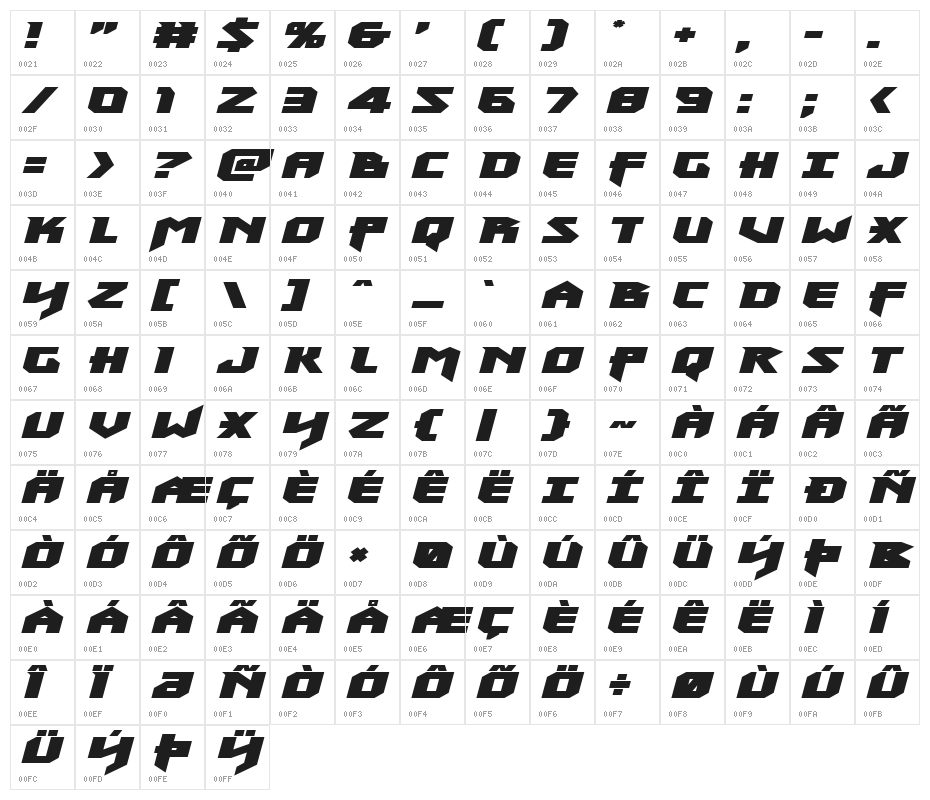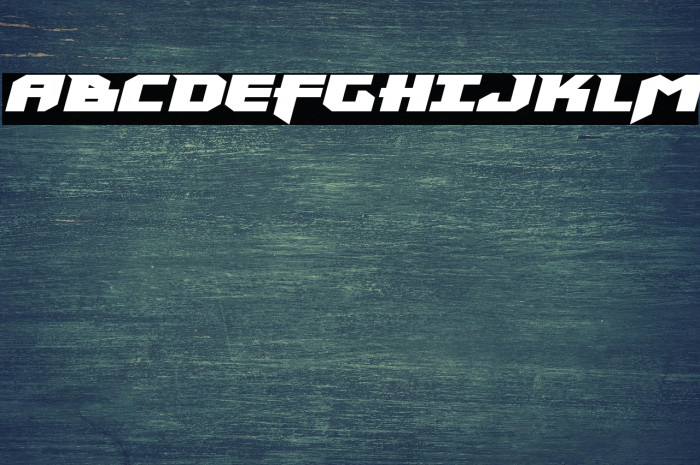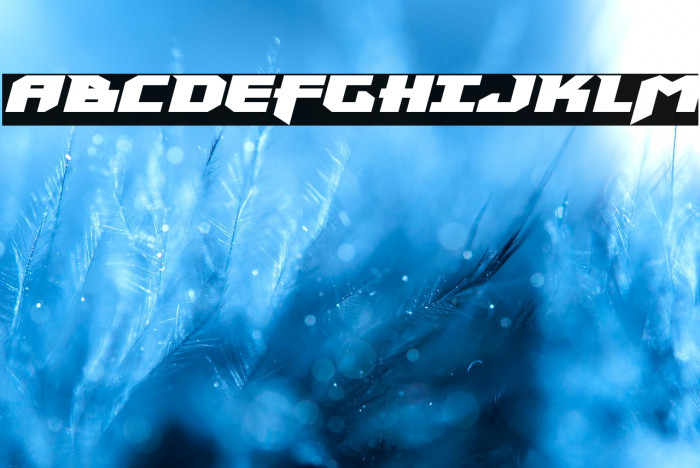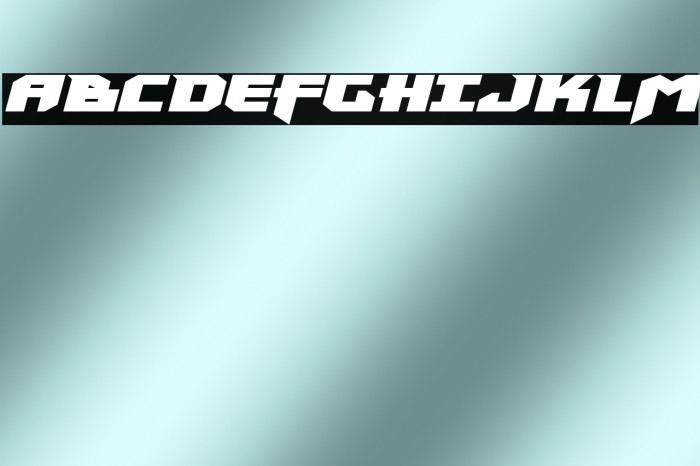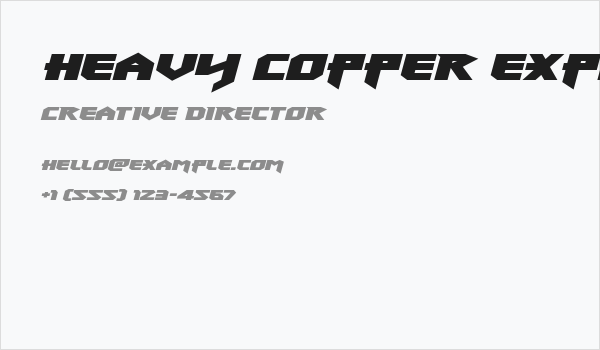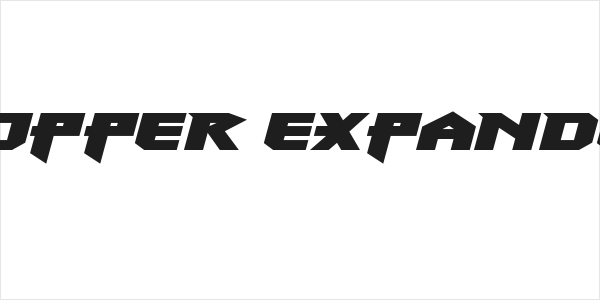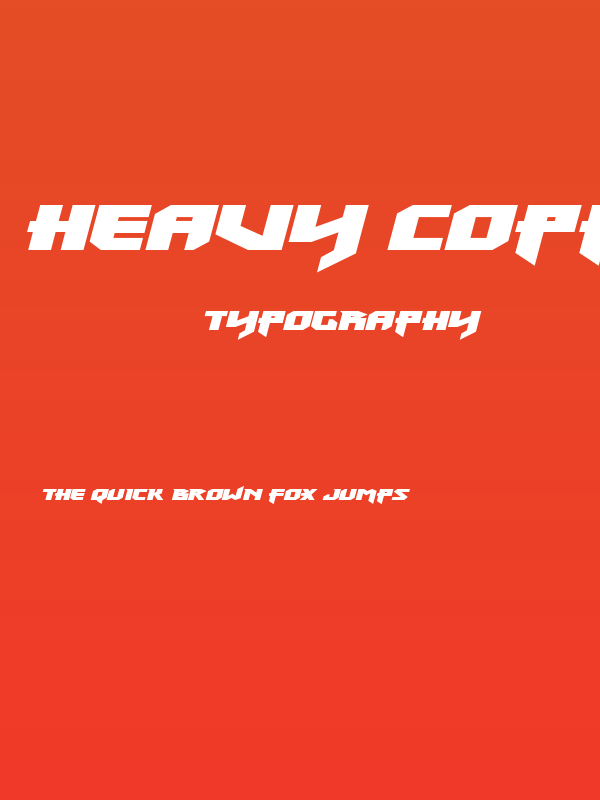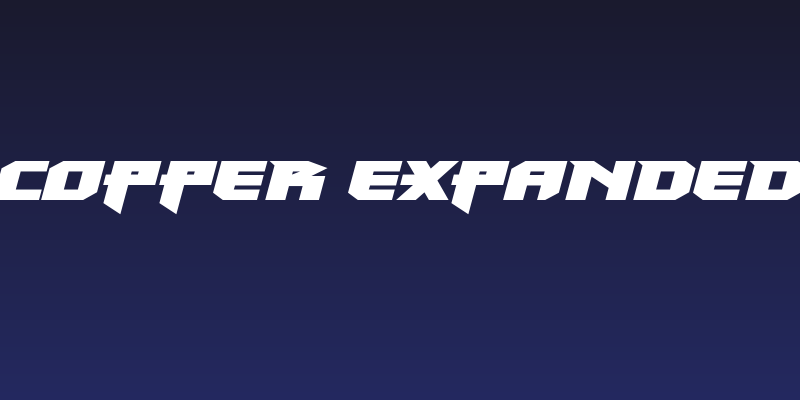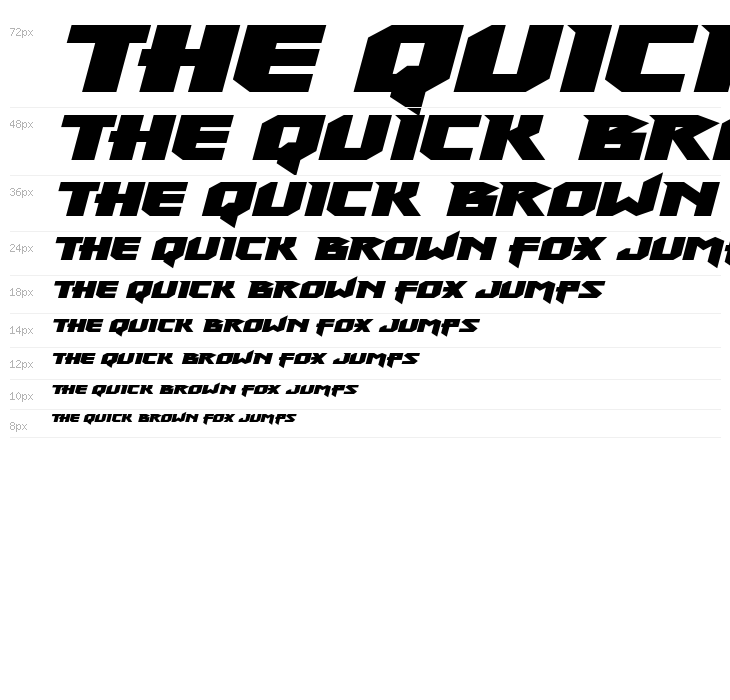
Heavy Copper Expanded Italic Font
Heavy Copper Expanded Italic Description
This font features a bold, angular design with a futuristic and aggressive aesthetic. The characters are heavily stylized with sharp edges and a dynamic slant, giving a sense of motion and energy. The uppercase and lowercase letters maintain a consistent style, with the lowercase slightly smaller but equally bold. Numbers and special characters follow the same design principles, ensuring uniformity across all glyphs. The expanded width of the characters adds to the boldness, making it ideal for impactful statements. The italic slant enhances the forward-moving feel, suitable for modern and edgy designs.
| Proposed Projects | Ideal for video game titles, sports branding, action movie posters, and tech-related logos. |